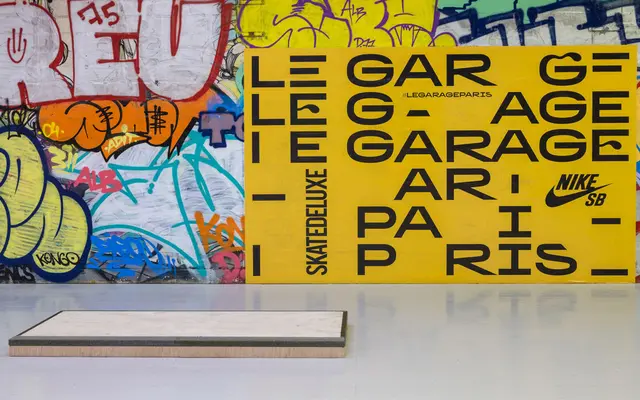
Euclid Mono
Swiss Typefaces · Emmanuel Rey, Quentin Schmerber
A monospaced extension of the Euclid geometric sans family, designed for technical and code-adjacent settings.
Part of Swiss Typefaces' Euclid system, this mono variant carries the geometric construction of the wider family into fixed-width territory. Designed by Emmanuel Rey and Quentin Schmerber, with font engineering by Christoph Koeberlin, it offers a consistent optical language across mono and proportional settings. Suited to interface design, code environments and contexts where typographic consistency with the broader Euclid family is required.
A monospaced typeface from the Euclid family, which is rooted in geometric sans-serif principles; the mono variant retains the geometric construction of the broader Euclid system.